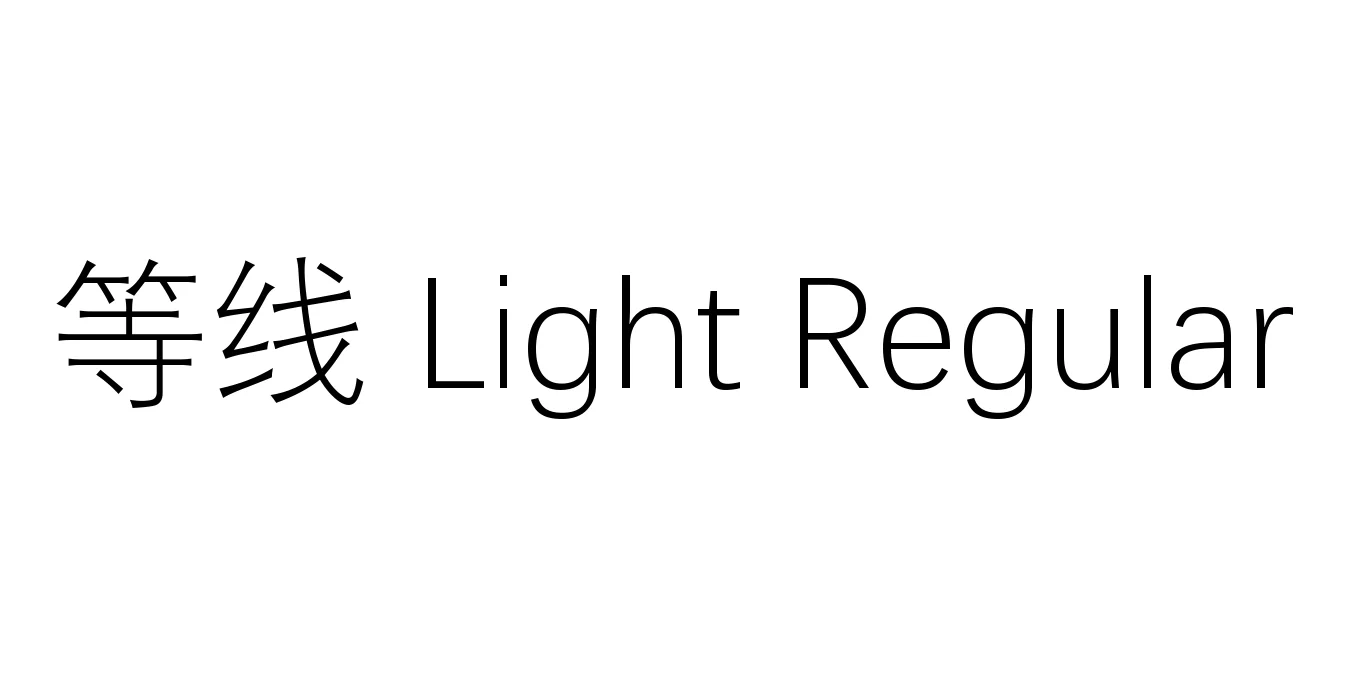
等线 Light Regular
Designed by Microsoft Corporation
| Category | Sans-serif |
| Designer | Microsoft Corporation |
DengXian Light (等线 Light) is a modern sans-serif typeface designed to provide a clean and contemporary aesthetic for simplified Chinese characters. Introduced by Microsoft as a core system font for Windows 10 and the default typeface for Office 2016, it replaced older defaults to offer a more streamlined, minimalist appearance that aligns with modern digital design trends.
The Light Regular weight is specifically engineered for high-resolution displays, featuring thin, precise strokes that maintain excellent legibility without the visual clutter of traditional serifs. Its geometric structure and consistent stroke width make it a versatile choice for both user interfaces and professional graphic design projects that require a sophisticated, airy feel.
等线 Light Regular Best Uses
Perfect for modern website headers and clean body text on digital platforms.
Ideal for minimalist user interfaces on high-definition smartphone screens.
Suitable for tech-focused brand identities and professional business reports.
Excellent for elegant brochures, fashion magazines, and sleek promotional materials.